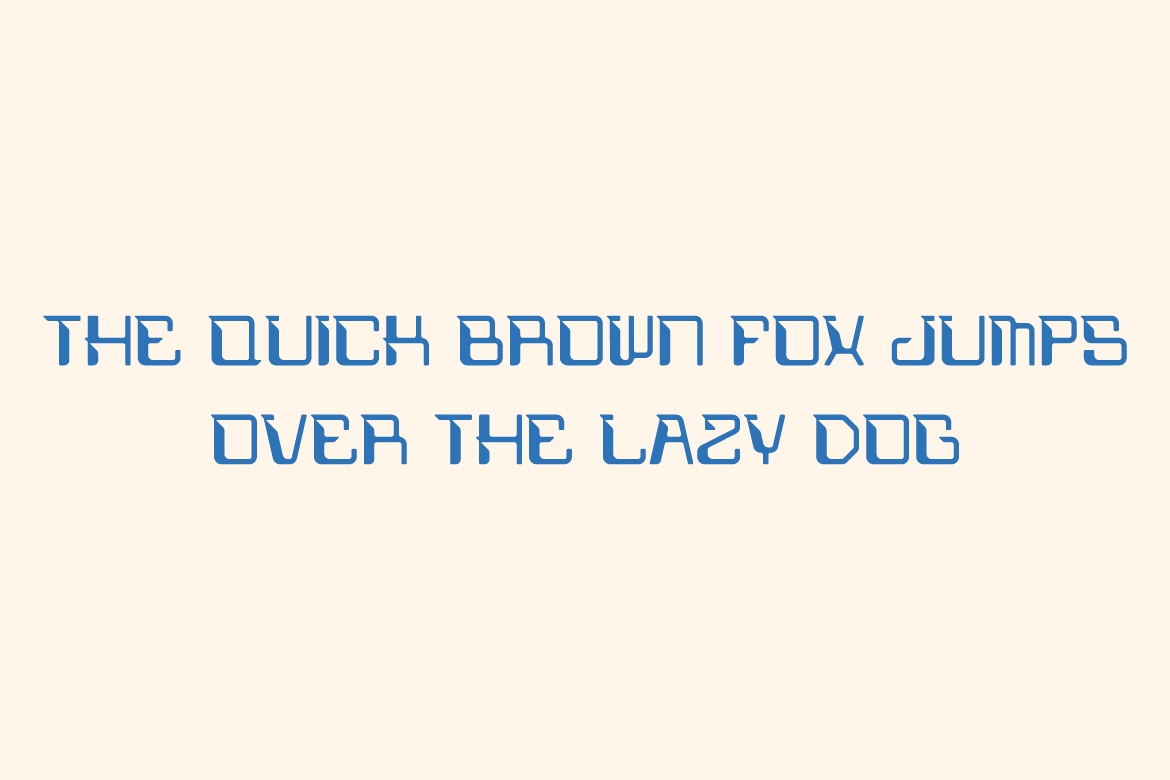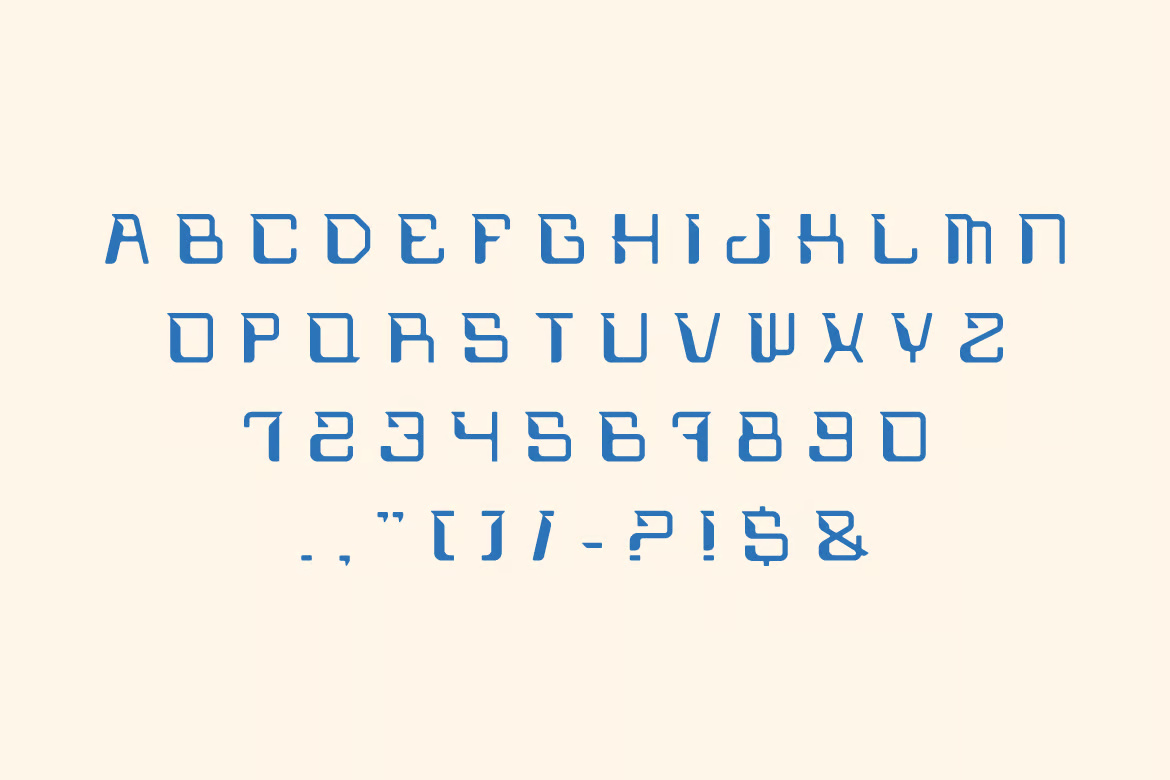
Diwofax
Diwofax is a futuristic and high-tech typeface crafted for innovation and digital aesthetics. With its sleek, modern design, it’s ideal for sci-fi projects, tech branding, gaming, UI/UX design, and cyber-inspired visuals. Elevate your creations with the cutting-edge style of Diwofax!
Diwofax Sans-Serif Font